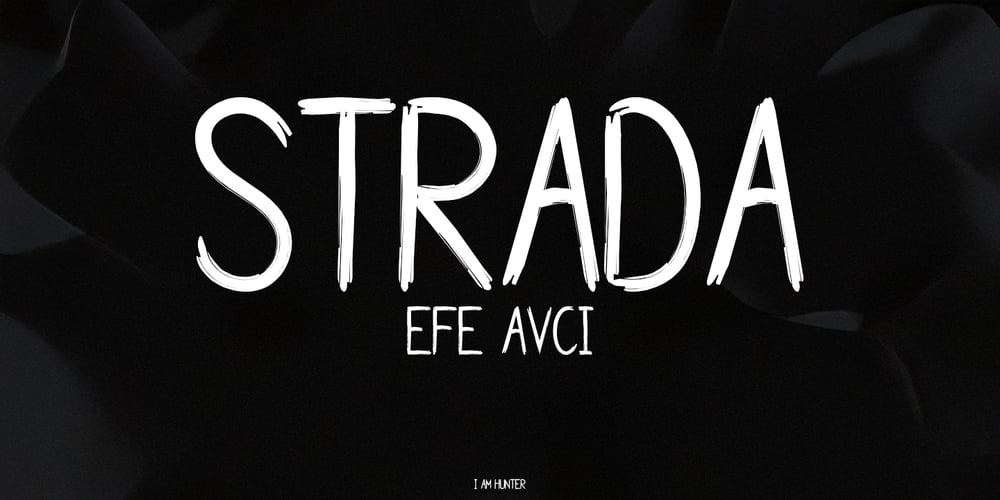
Strada Font Family was designed by Efe Avcı and published by Efe Avcı. Strada contains 1 styles and family package options. Strada is a handwritten brush font. Includes bonding characters that will take your projects to the next level!You can easily access all the glyphs full of brushes! It also has many special features, including glyphs. Font designs made for various vector designs can be used in prints such as digital wedding blogs, online stores, social media, clothing, accessories, bags, pins, logos, business cards, watermarks and many other product areas. …This way you can make your product look brushed and attractive.